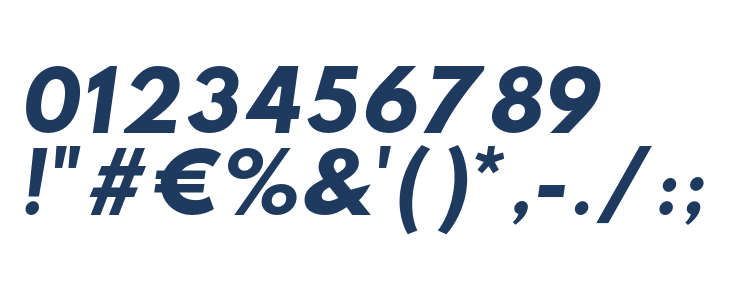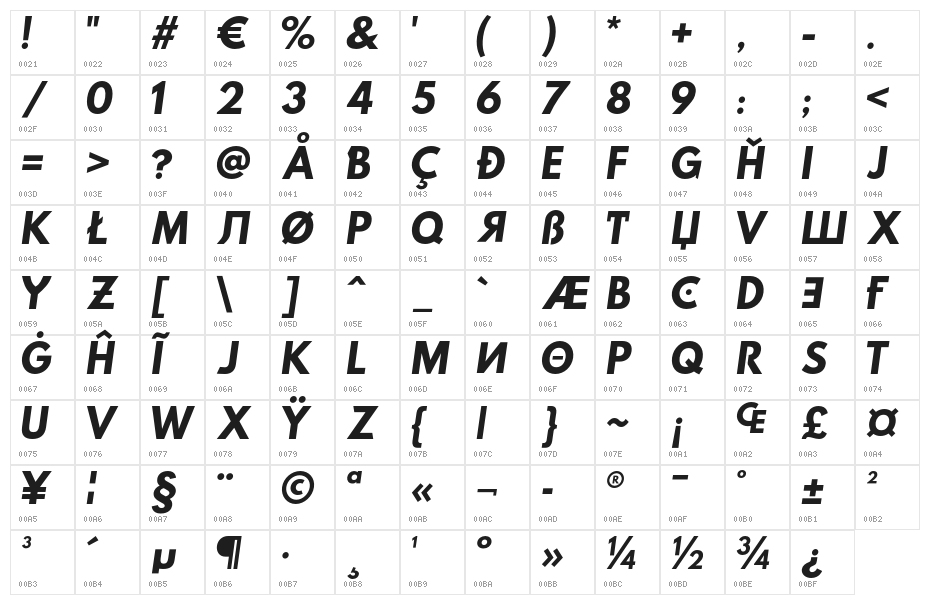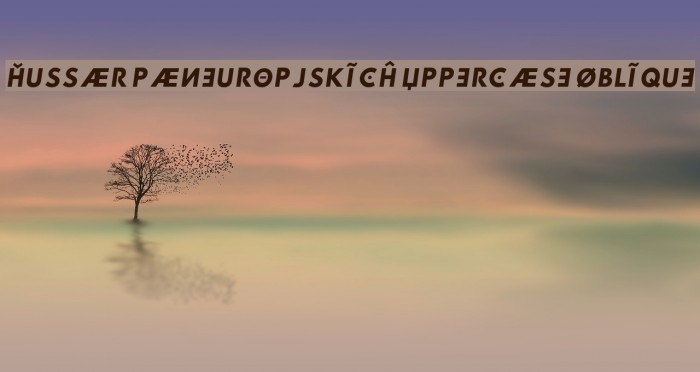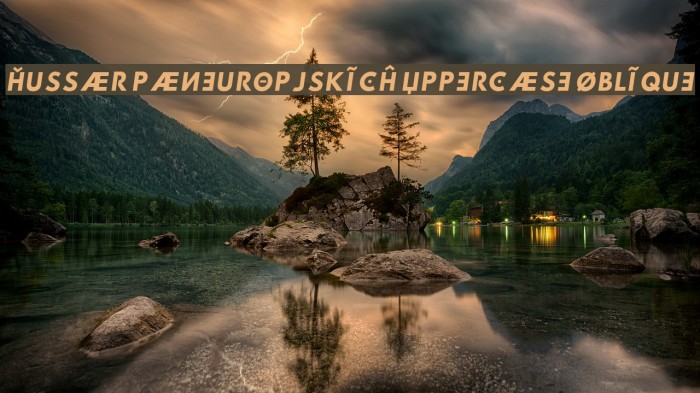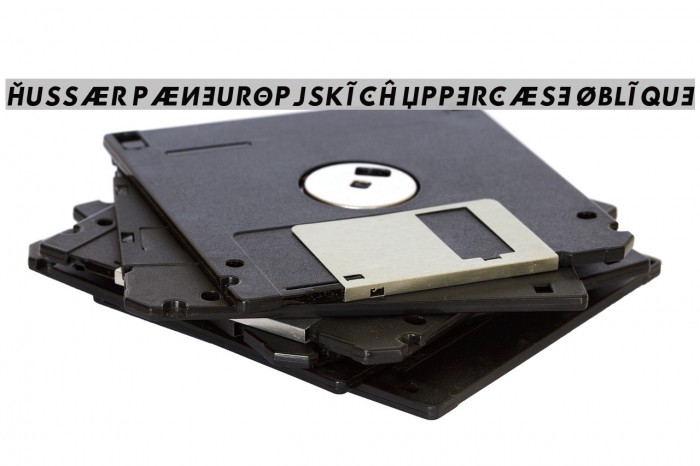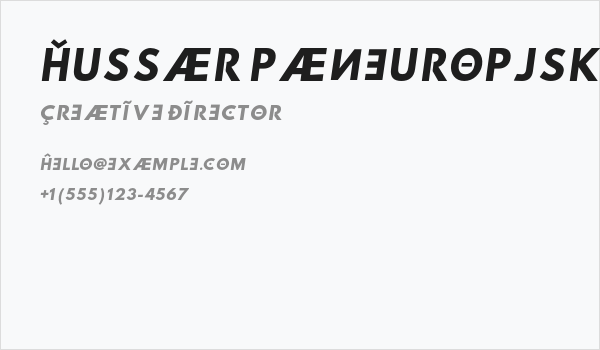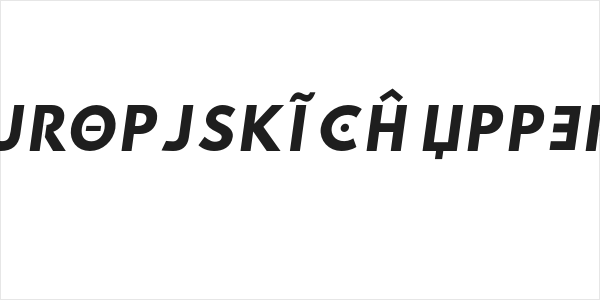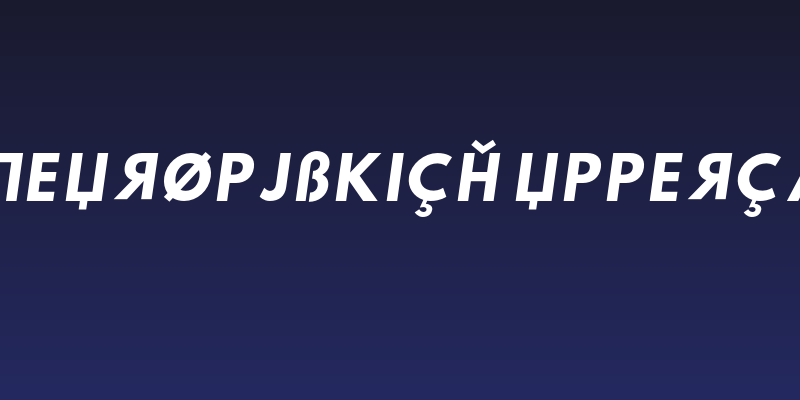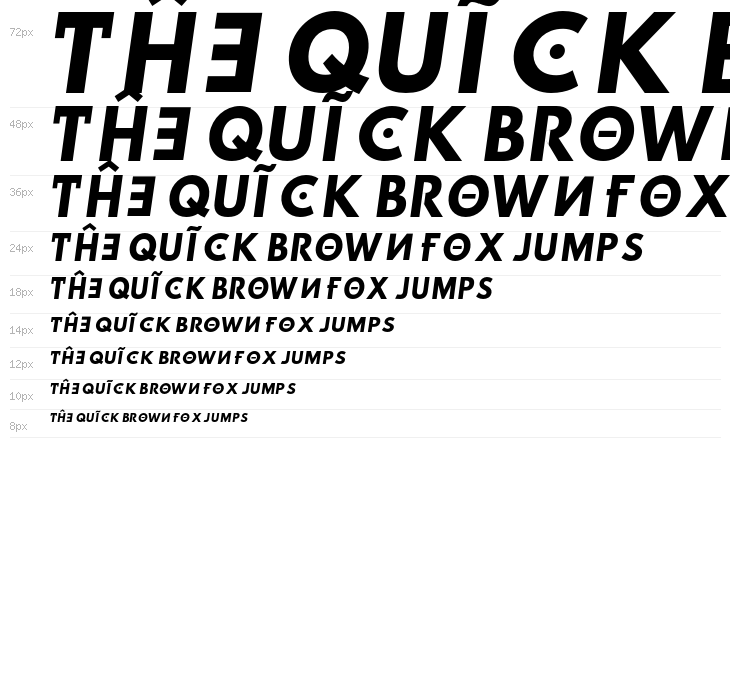
Hussar Paneuropjskich Uppercase Oblique Font
Hussar Paneuropjskich Uppercase Oblique Description
This font features a bold and dynamic oblique style, characterized by its strong geometric shapes and clean lines. The uppercase letters exhibit a distinct slant, adding a sense of motion and modernity. The characters are well-defined with a consistent stroke width, providing a uniform appearance across the alphabet. The numerals and special characters maintain this bold, slanted style, ensuring readability and visual impact. The font's design is versatile, making it suitable for various applications where a contemporary and assertive look is desired.